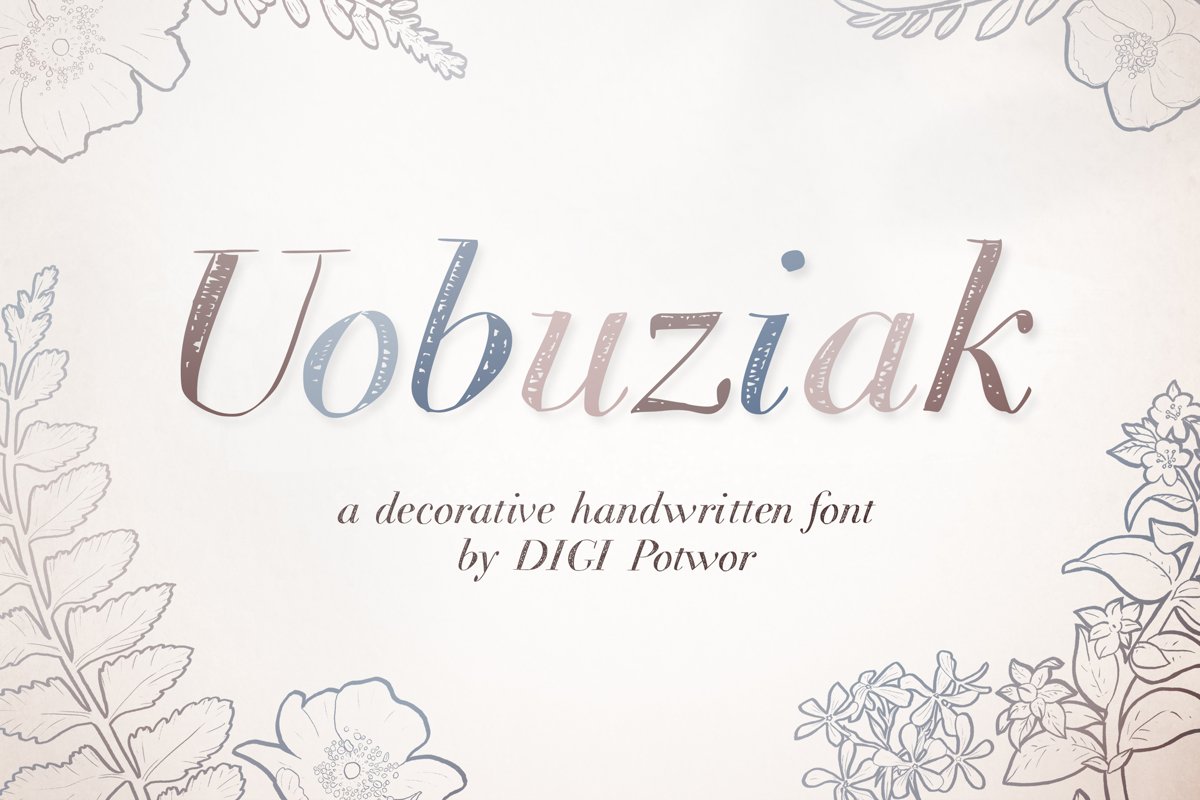
Uobuziak font
Uobuziak
Introduce Uobuziak font is an
adorable typeface. Just perfect for all your humorous and lovely
projects, headings, flyer, greeting cards, T-shirts, logos and much
more.